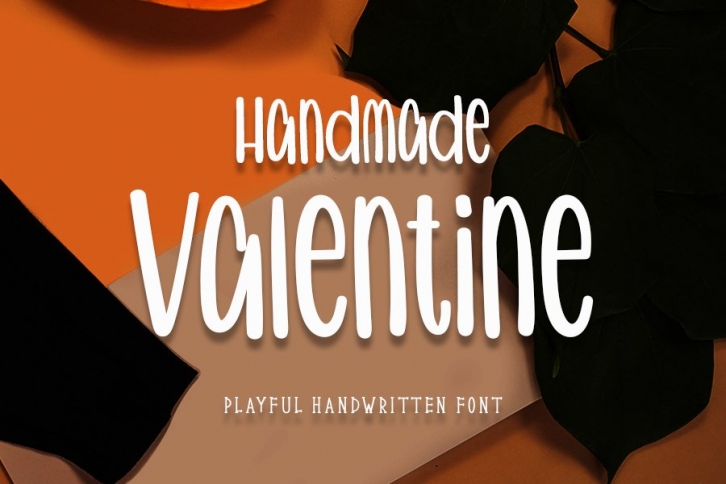
Handmade Valentine is a trendy and unique font with an authentic style. It was designed by InermediaSTUDIO and it's a great choice for creative people who need such a font. It was released on January 5, 2021 and the file size is 19.66 MB. Handmade Valentine will add an organic vibe to any design idea!